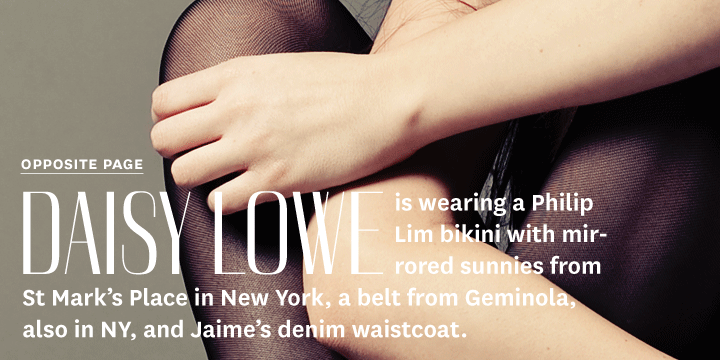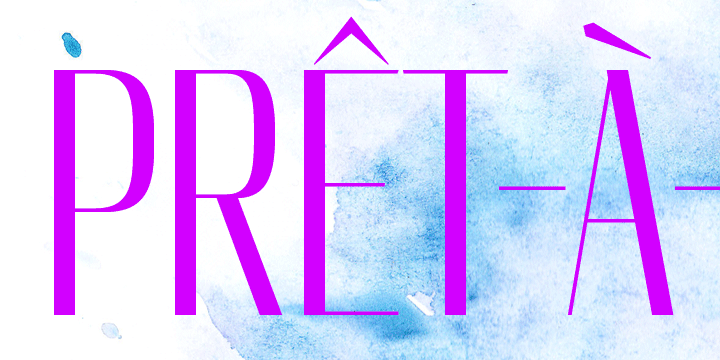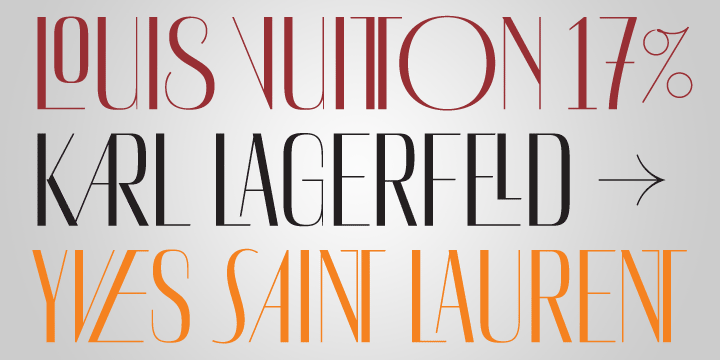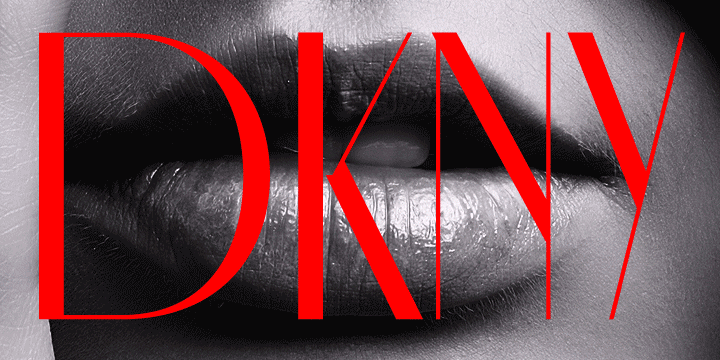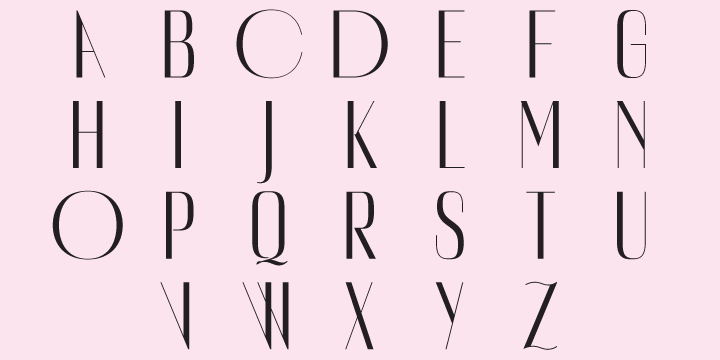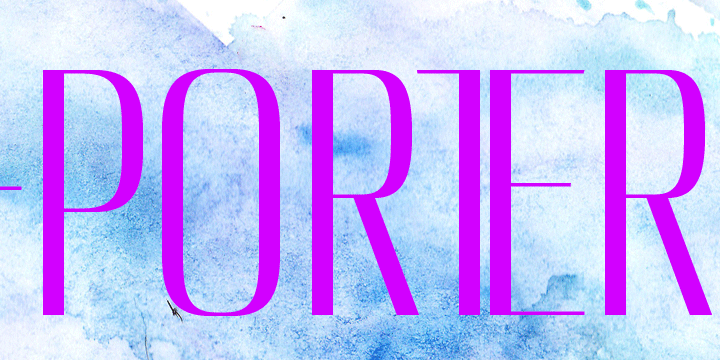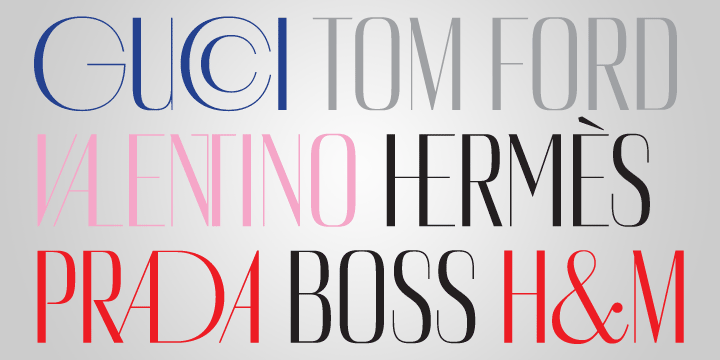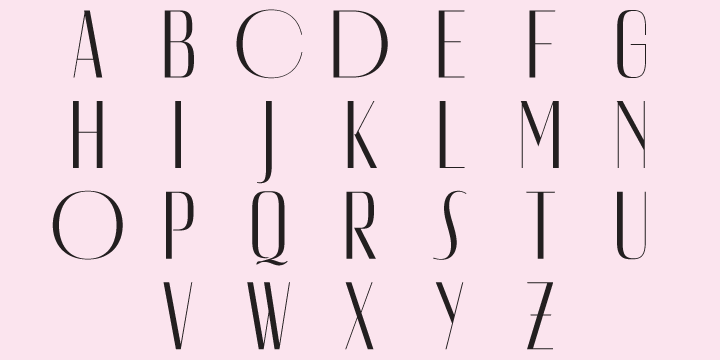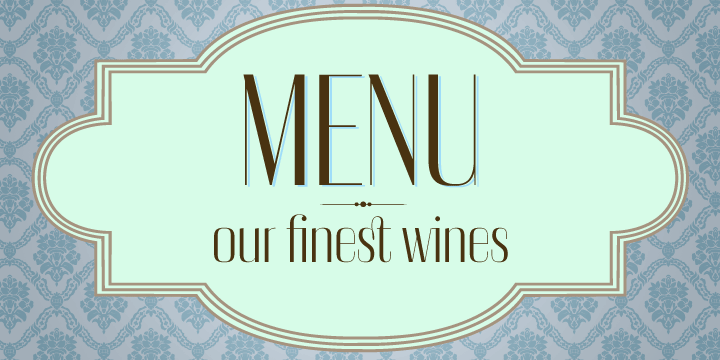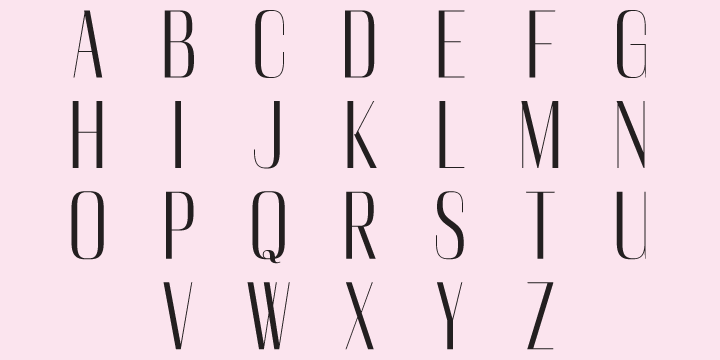
Prestiggio is a sans serif font published by Rekord.
With the very high contrast, elegant proportions, many alternate glyphs and ligature overload, Prestiggio is an instant fashionizer. Prestiggio ships with 95 discretionary ligatures (uppercase and lowercase), alternate characters, old-style figures, pictograms, arrows, prebuilt words and support for 85 Latin-based languages. The characters can be replaced automatically with the stylistic sets function, but you will get the best results using the glyphs palette. Recommended for editorial, book, poster and packaging use.